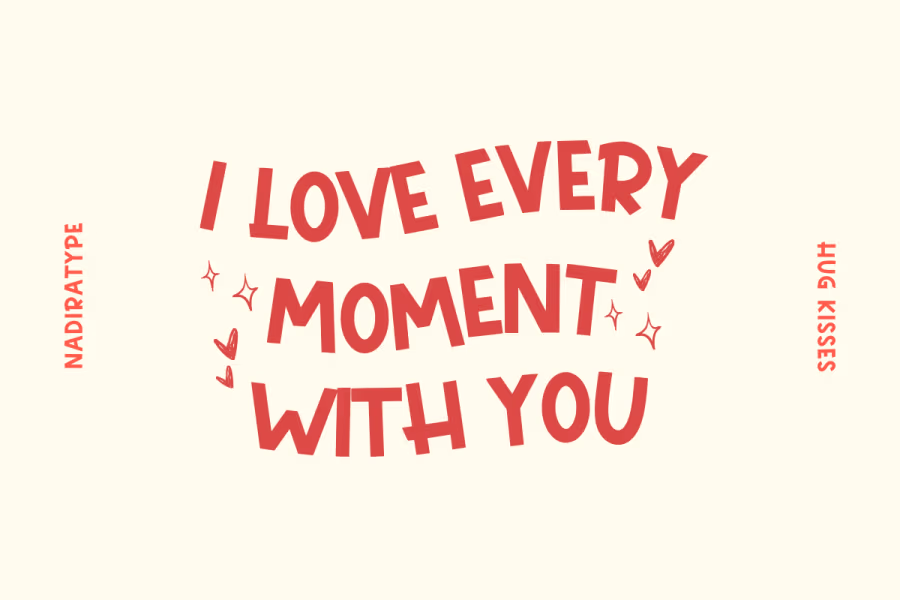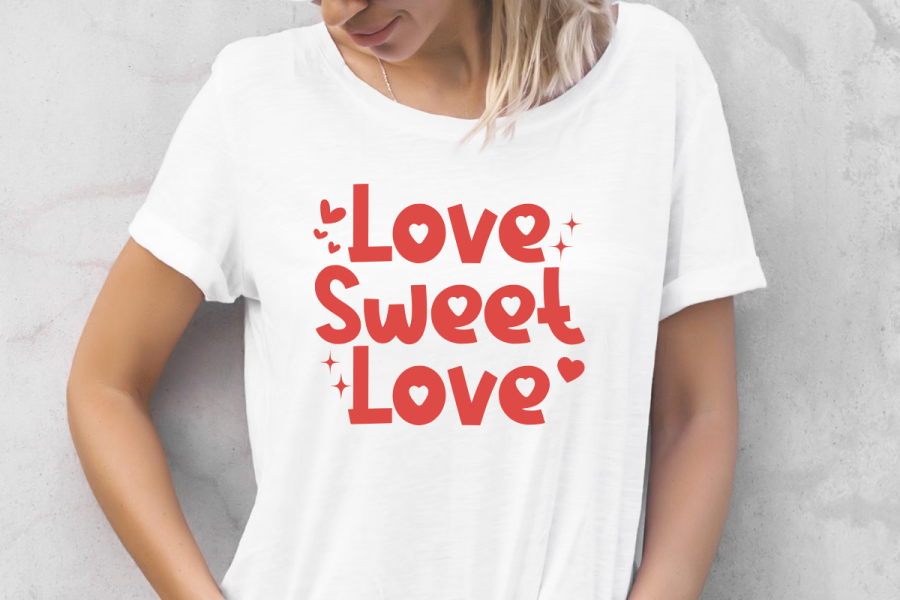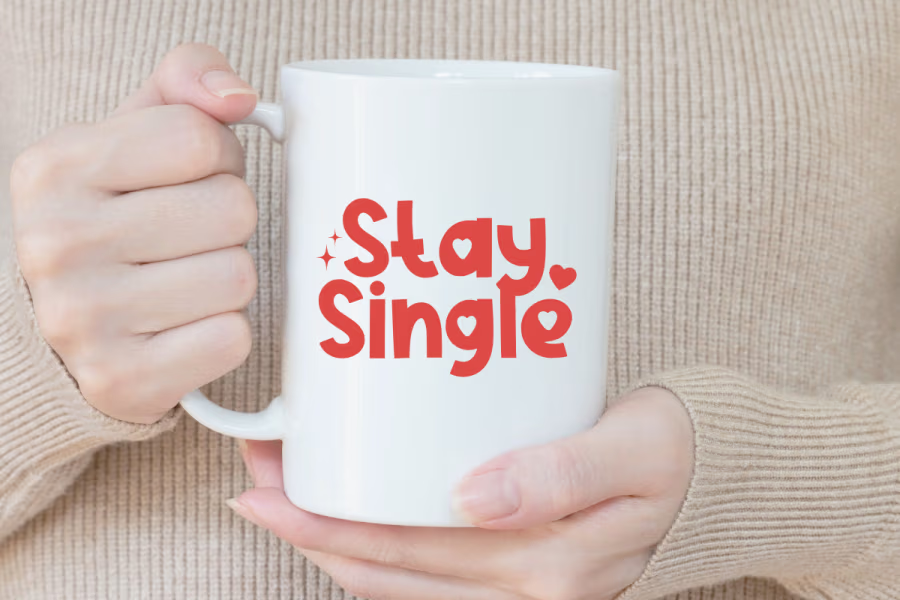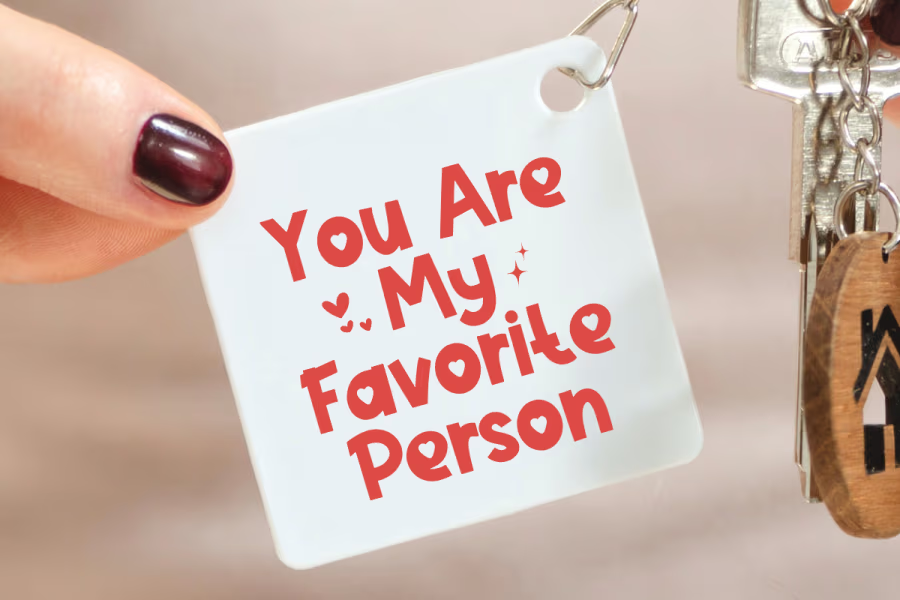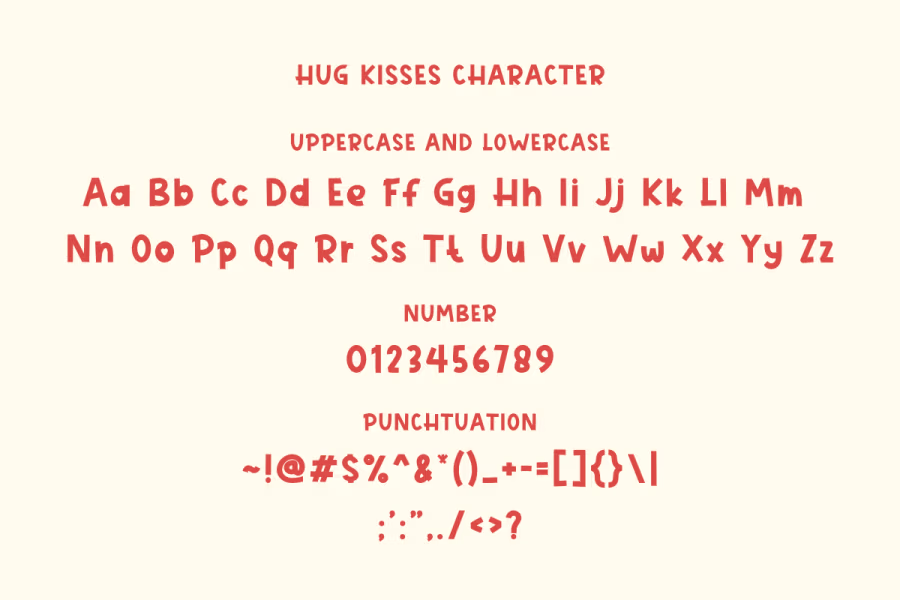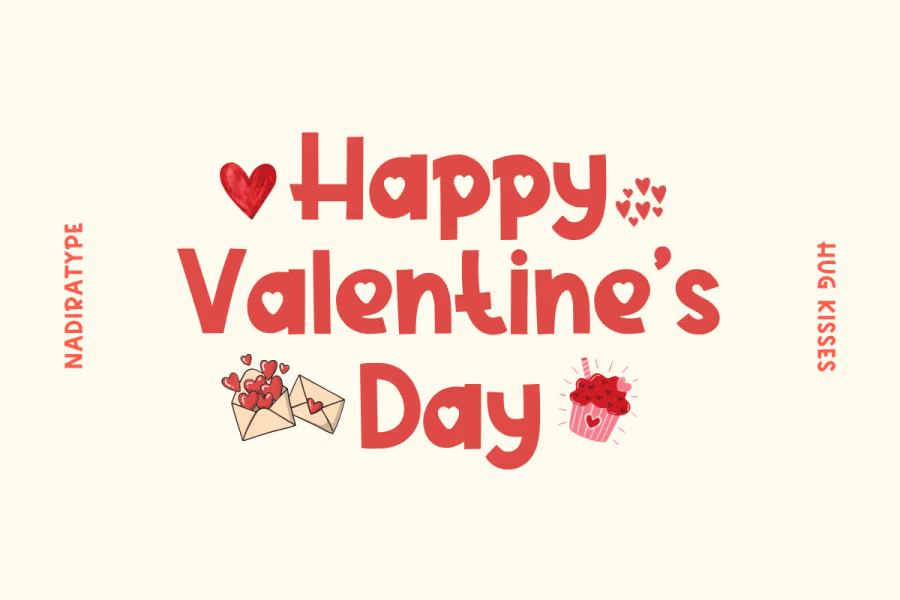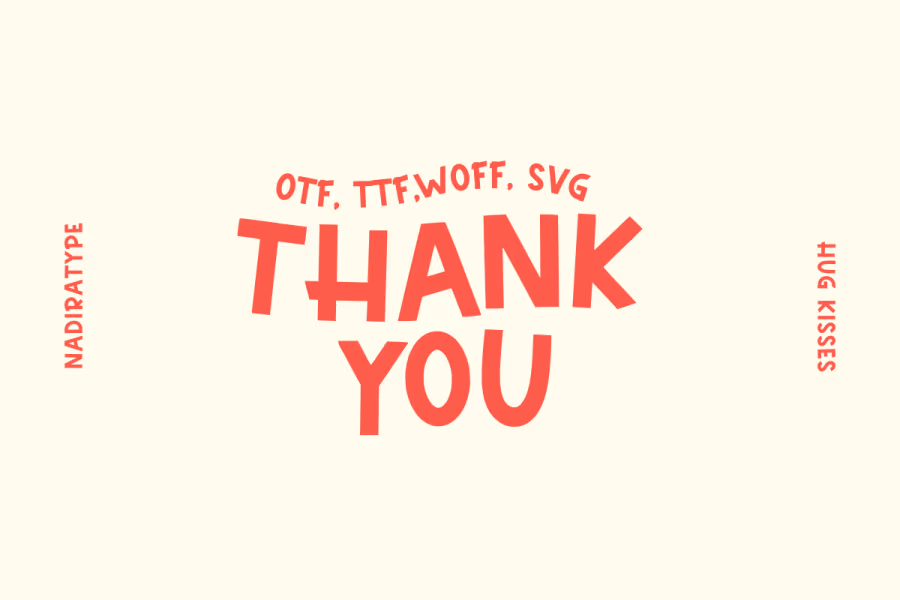
Hug Kisses - Cute Handwritten Font
Bring a touch of warmth and affection to your creative projects with Hug Kisses, a charming handwritten font designed to capture the heart. With its bold yet soft letterforms and whimsical personality, this font is perfect for creators who want to add a personal, "hand-made" feel to their work.
Whether you're designing for Valentine's Day, children’s products, or cozy lifestyle branding, Hug Kisses delivers a friendly and approachable look that resonates with your audience.
Why You’ll Love It:
- Unique Heart Accents: Features adorable heart-shaped details (like the "u" and "g") that make your text stand out instantly.
- Handcrafted Feel: Perfectly imperfect lines give your designs an authentic, DIY aesthetic.
- High Readability: Even with its playful style, the bold characters ensure your message is clear and easy to read.
- Versatile Design: Ideal for both digital and print media.
Perfect For:
- Greeting Cards & Invitations: Especially for weddings, birthdays, and romantic occasions.
- Social Media Graphics: Create eye-catching Instagram quotes, Pinterest pins, and TikTok captions.
- Branding & Packaging: Perfect for bakeries, kids' clothing brands, handmade crafts, and organic beauty products.
- Merchandise: Looks amazing on t-shirts, mugs, tote bags, and stickers.
- Book Covers: Great for children’s books or upbeat romance novels.